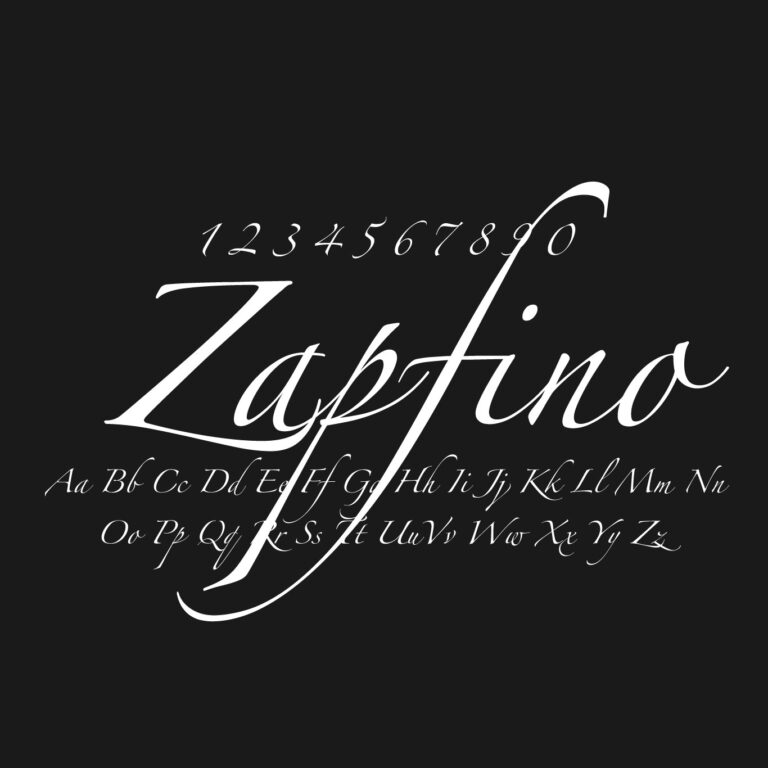
Zapfino was designed by Hermann Zapf and released by Linotype in 1998. Unlike a conventional script font built around a single set of letters, Zapfino was conceived to reproduce some of the variation found in real calligraphy, using alternate characters and ligatures to avoid a mechanically repeated appearance.
From a 1944 Sketch to a Digital Typeface
The origins of Zapfino go back to calligraphy Hermann Zapf created in 1944. Decades later, digital typography finally made it possible to turn those freely drawn forms into a working typeface without reducing them to one rigid alphabet. Zapf began exploring the idea with David Siegel in the early 1990s before the project was eventually completed with Linotype.
The first Zapfino release used four interchangeable alphabets together with additional alternates, ligatures and ornamental forms. These variations were central to the design: the goal was not simply to imitate handwriting, but to let repeated letters change shape in a way that feels closer to lettering produced by hand.
The macOS Version of Zapfino
Zapfino vs. Zapfino Extra
Zapfino should not be confused with Zapfino Extra. Hermann Zapf later expanded the original design in collaboration with Akira Kobayashi, adding many more alternates, ornaments, small caps, ligatures, dramatic hyper-flourishes and a heavier Forte style. The file on this page is the standard macOS Zapfino rather than the separate Zapfino Extra family.